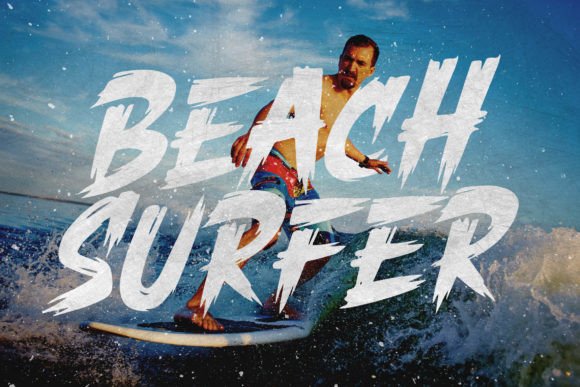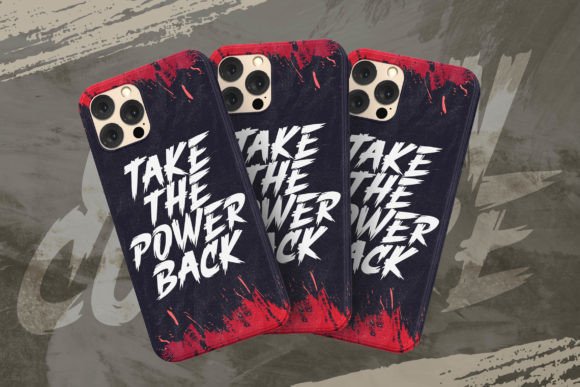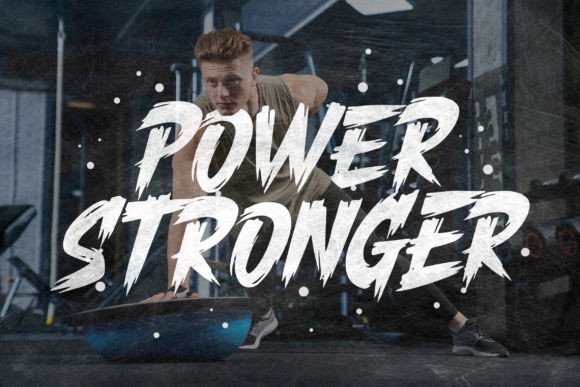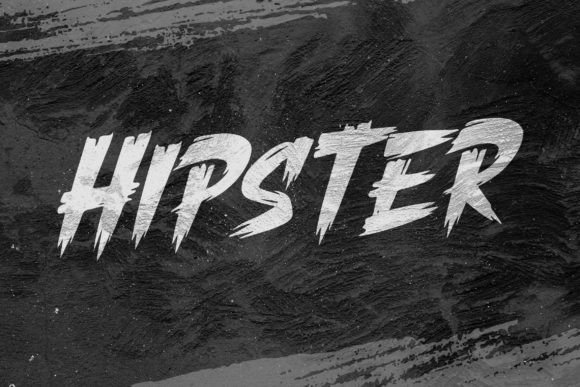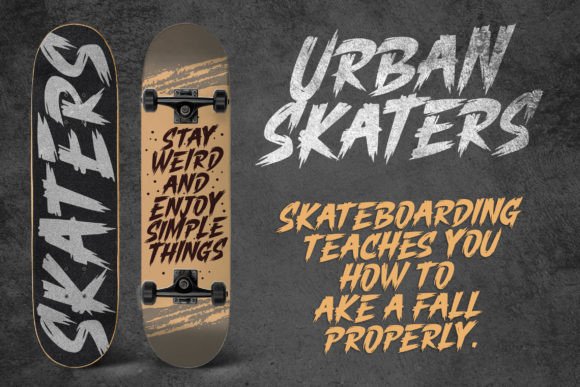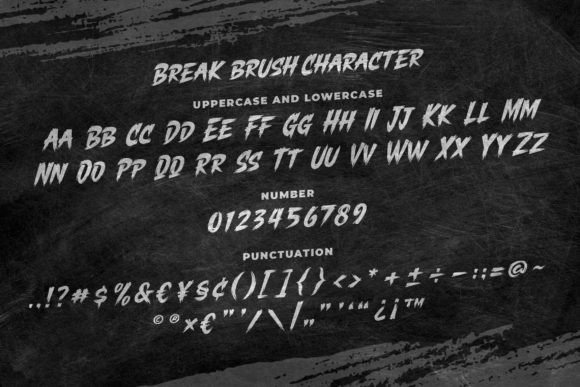
Get Ready to Unleash Your Creativity
Have you ever stared at a blank canvas, waiting for inspiration to strike? That moment when the creative juices start flowing and you know exactly what you want to create? For designers, that moment is what drives us to push the boundaries of typography and style.
That’s where the Break Brush Font comes in – a wild brush font that’s designed to add a touch of whimsy and playfulness to your designs. This display font is inspired by the art of brush lettering, making it perfect for creating eye-catching book covers, posters, packaging, and more. Whether you’re a seasoned designer or just starting out, Break Brush Font is a valuable addition to your toolkit, offering a unique aesthetic that’s sure to stand out from the crowd.
Break Brush Font Key Features
- Unique Brush Strokes: Break Brush Font features hand-drawn, organic brush strokes that add a touch of personality to any design, making it perfect for creative projects.
- High-Quality Vectors: The font is built with high-quality vector graphics, ensuring crisp and clear display on any device or screen resolution.
- Multi-Lingual Support: Break Brush Font supports a wide range of languages, including English, Spanish, French, German, and many more, making it a great choice for global brands.
- Professional and Handmade: The font is carefully crafted to provide a professional, yet handmade look, making it ideal for branding, advertising, and editorial projects.
Break Brush Font Review
Overall, I think the Break Brush Font is a solid addition to any designer’s toolkit. Here’s what I like:
- ✨ The font’s brush-like texture adds a unique touch to any design project, making it stand out from more traditional fonts.
- ✨ Break Brush Font is highly versatile and can be used for a wide range of projects, from digital signage to print materials.
- ✨ The font is well-documented, making it easy to navigate and customize.
- ⚠️ The font may not be suitable for text-heavy projects, as the brush-like texture can make it difficult to read.
- ⚠️ Some users may find the font’s design a bit too playful or childish, which could limit its use in more professional projects.
Overall, I think the Break Brush Font is a great choice for designers who want to add some visual interest to their projects. While it may not be suitable for every project, it’s a solid option for those looking for a unique and eye-catching font.
The Break Brush Font is ideal for:
Creating eye-catching headlines and titles.
Designing social media posts and advertisements.
Developing branding materials, such as logos and business cards.
Alternatives to Break Brush Font
Great Vibes is a modern, cursive script font. It is ideal for use in headings, titles, and short paragraphs where a touch of elegance is desired. Great Vibes is more refined and polished than Break Brush Font, making it suitable for high-end branding and design projects.
Comparison: Great Vibes has a more consistent and controlled feel compared to Break Brush Font’s more playful and expressive nature.
Alex Brush is a calligraphic script font with a classic, elegant feel. It is suitable for use in headings, titles, and short paragraphs where a sense of sophistication is desired. Alex Brush is more refined and precise than Break Brush Font, making it suitable for formal branding and design projects.